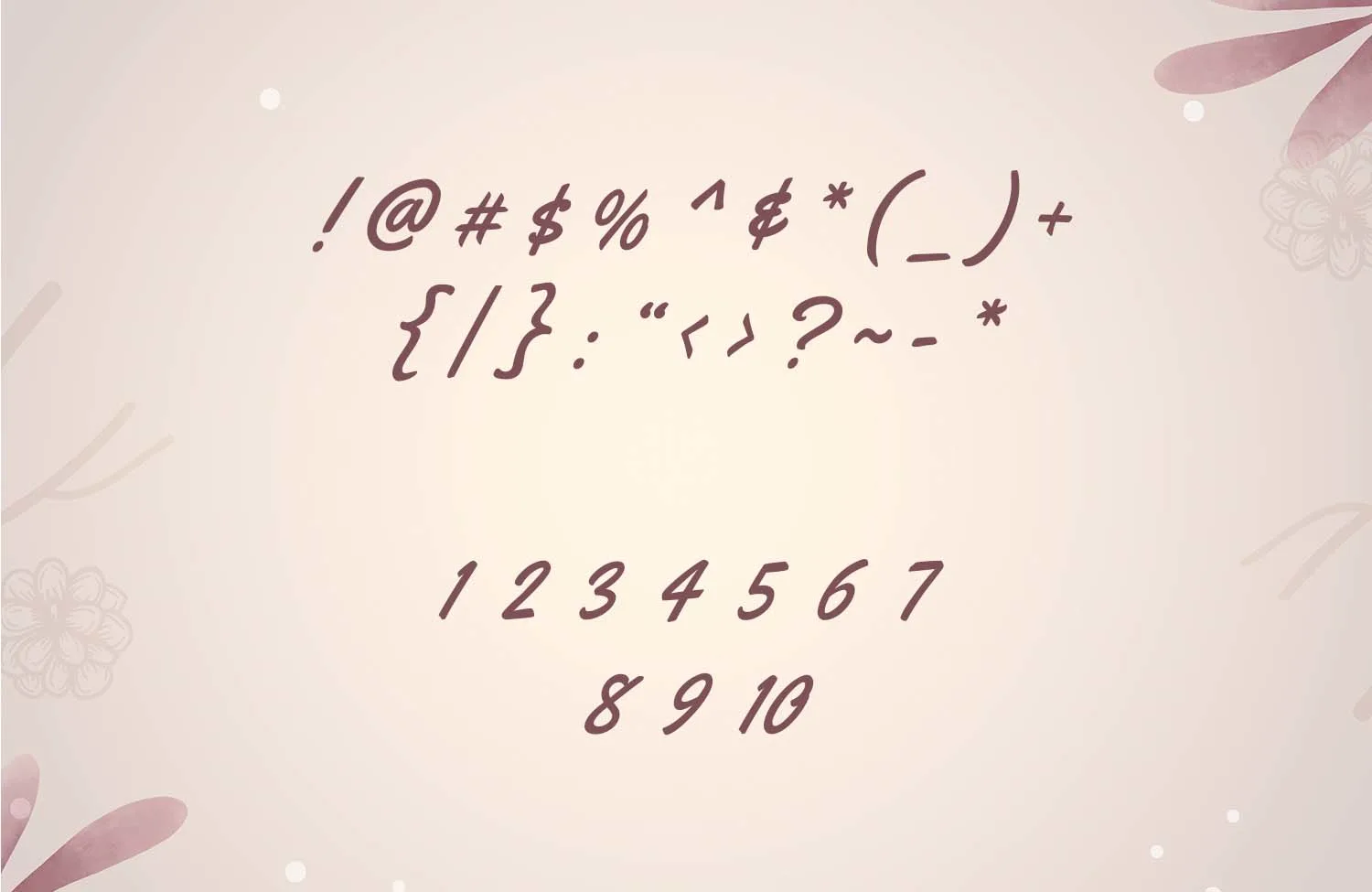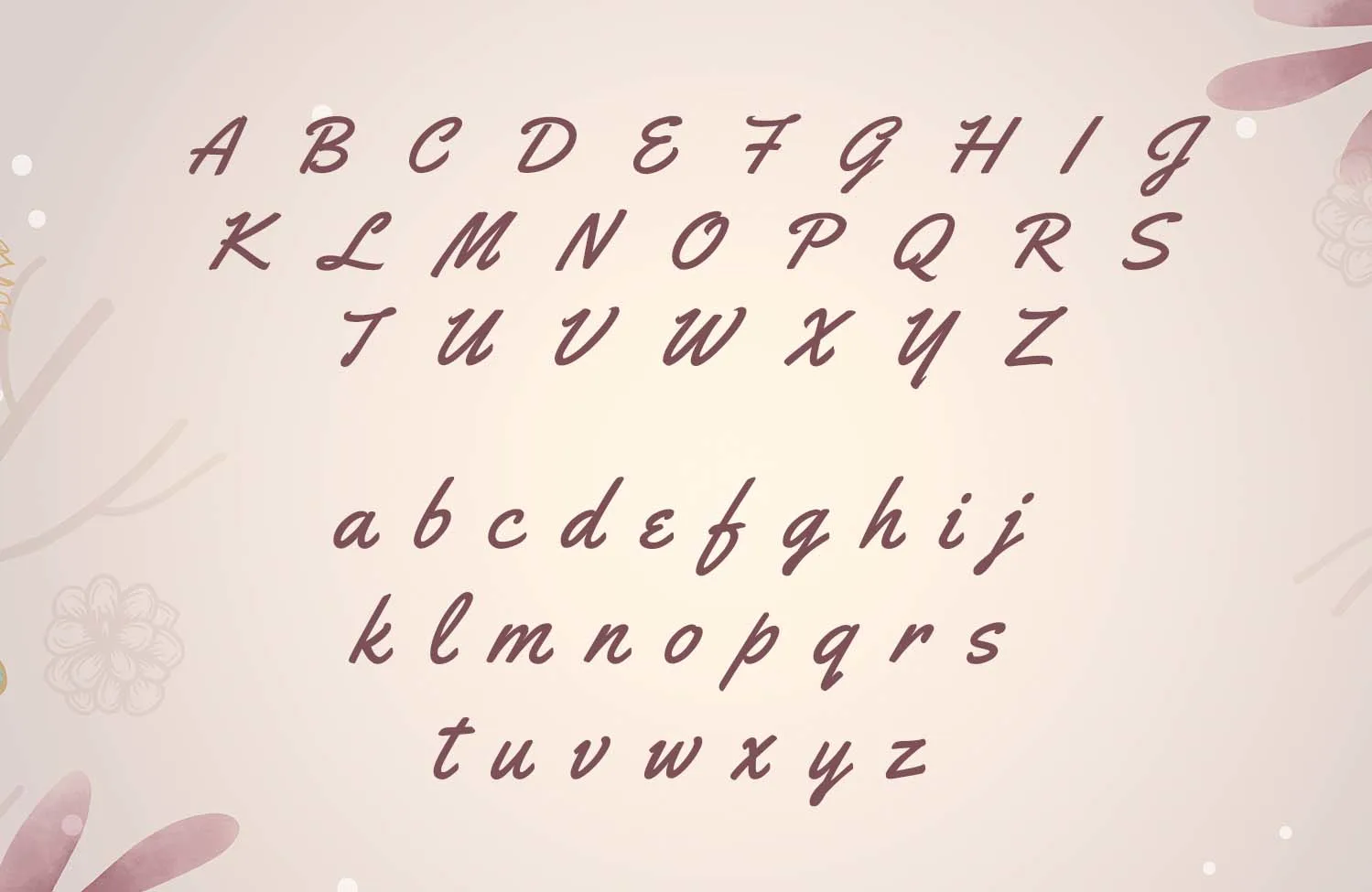
Yellowtail Handwritten Typeface
Yellowtail is a charming handwritten script font that blends artistic flair with classic brush lettering style. Its smooth, flowing design gives every word a warm and personal feel, making it perfect for projects that need a balance of vintage charm and modern elegance.
A Touch of Retro Brush Script
Yellowtail brings back the timeless appeal of 1930s brush lettering, inspired by classic typestyles like Gillies Gothic and Kaufmann Script. The font captures the hand-painted rhythm of traditional sign art but adds a modern twist. Each stroke feels natural and confident, combining connecting and non-connecting letterforms for a relaxed, easy-to-read texture.
This makes Yellowtail not only beautiful but also highly legible — ideal for both short titles and longer text. It’s perfect for designers who love fonts that look handwritten yet polished.
Cute, Artistic, and Effortlessly Stylish
The cute and artistic feel of Yellowtail makes it stand out among typical brush fonts. It carries just the right amount of personality — playful but not messy, expressive but not overdone. The medium weight keeps it balanced and gives your text a smooth, rhythmic flow that feels natural on screen or print.
Use it to bring a personal, hand-crafted touch to your creative work. Whether you’re designing for fashion, lifestyle, or branding, Yellowtail adds warmth and movement that draws attention without overpowering the layout.
Perfect for Branding, Posters, and Invitations
Yellowtail fits beautifully across a range of creative projects:
• Brand logos and packaging that need a handwritten feel
• Wedding invitations and greeting cards with elegant flair
• Art prints, quote posters, or home décor that emphasize personality
• Social media graphics and YouTube thumbnails for creative channels
• Restaurant menus and café branding with an old-school vibe
Its smooth flow and natural structure make it easy to pair with modern sans-serif or serif fonts, allowing versatile design combinations.